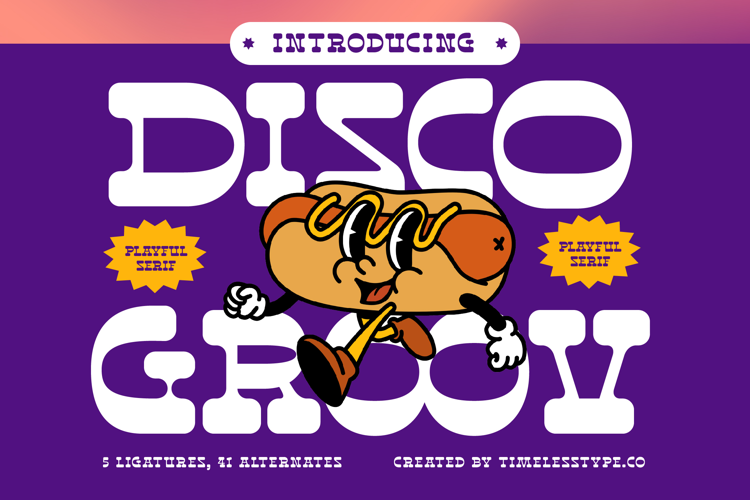
Disco Groov - Playful Serif Font
Disco Groov is a playful serif display font that captures fun, retro energy with a bold and quirky twist. Its chunky letterforms, rounded edges, and whimsical style make it a typeface full of personality and charm, perfect for designs that aim to entertain and connect with audiences in a lighthearted way. Equipped with 5 ligatures and 21 alternates, Disco Groov offers creative flexibility, allowing designers to create dynamic, eye-catching compositions that never feel boring.
This font is crafted for headline typography, where its bold and playful shapes instantly grab attention across posters, banners, and editorial layouts. In branding and logo design, Disco Groov communicates approachability and fun, making it an excellent choice for restaurants, cafes, snack brands, lifestyle products, or any creative business that wants to appear friendly and memorable. Its lively vibe also makes it a great fit for packaging design, especially for food, beverages, and youth-focused products where typography plays a central role in visual appeal.
Disco Groov also thrives in advertising campaigns, event promotions, and social media graphics, where its playful ligatures and alternates add flair and character to every message. For editorial spreads, merchandise, and lifestyle projects, the font brings warmth and individuality, turning typography into a central visual feature.
With multilingual support, Disco Groov adapts easily to global markets, making it a versatile choice for international projects.
Ultimately, Disco Groov is more than just a font—it’s a design companion for bold, fun, and expressive storytelling. Whether used in headlines, branding, packaging, or advertising, it ensures every project radiates joy, creativity, and unforgettable retro-modern style.